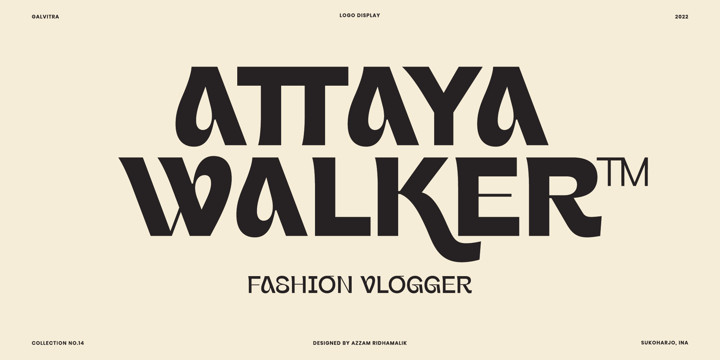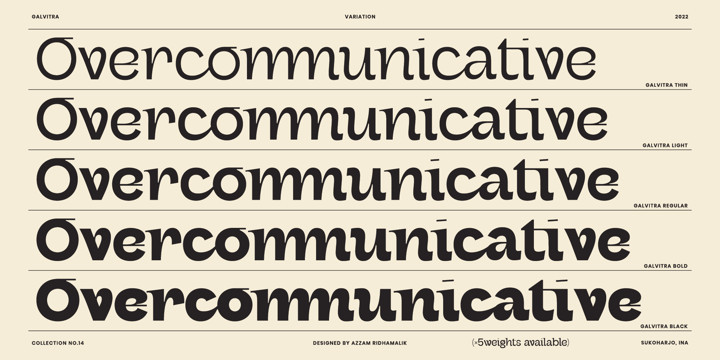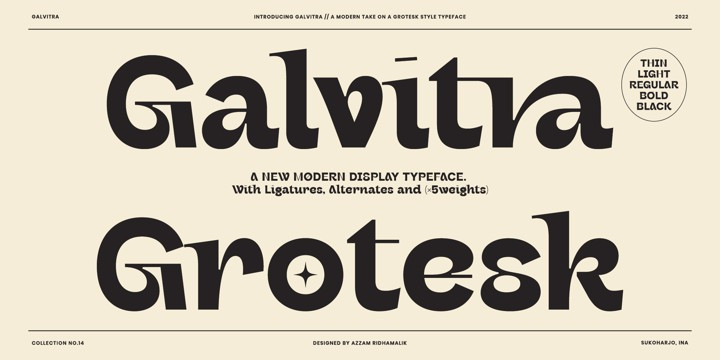
Galvitra Font
Galvitra FontIntroducing Galvitra Display Typeface!
A modern display typeface take on a grotesk style, comes in 5 weights and it has opentype features.
Galvitra typeface have unique shape and serif on selective characters, that’s sure make your design stand out.
Use Galvitra for most any aspect of graphic design, from logo to display designs.